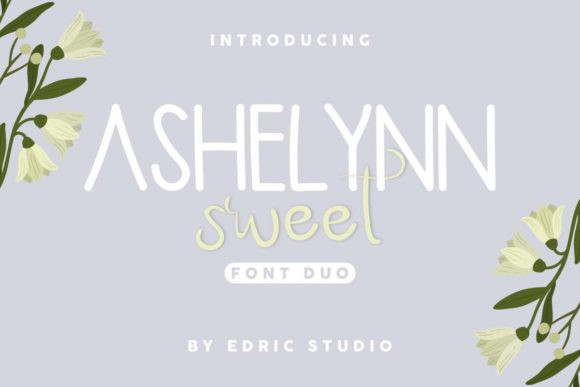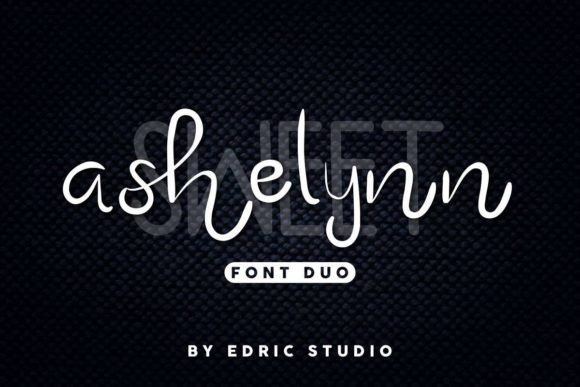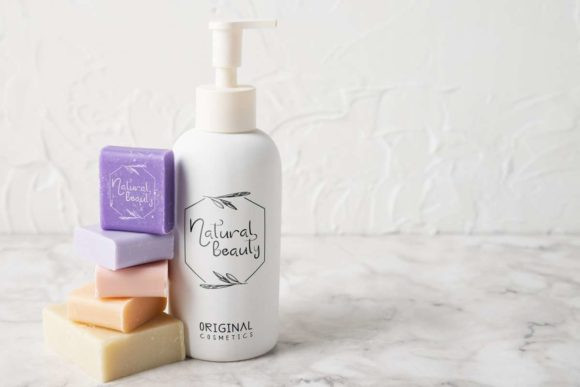
Ashelynn Font
Ashelynn duo is a match made in heaven, the letters of the script perfectly complement the sans’s style. Combining these two fonts on your next design will give your next design a playful and elegant feel.